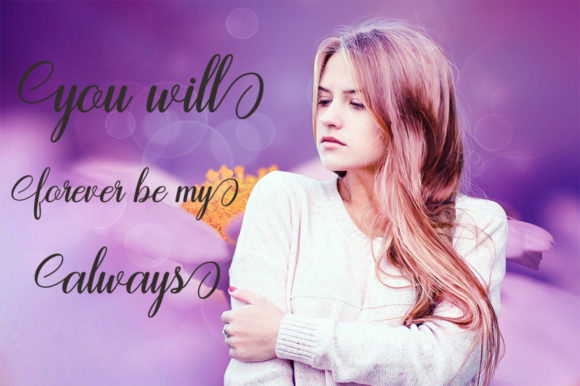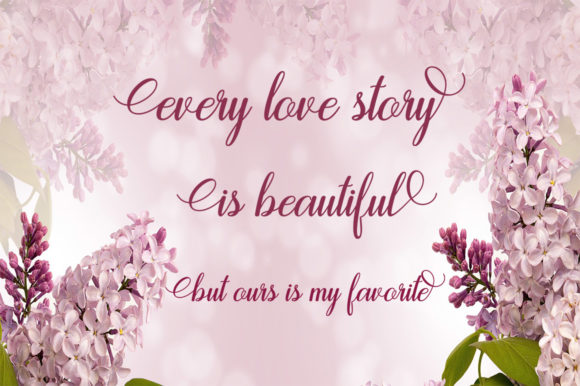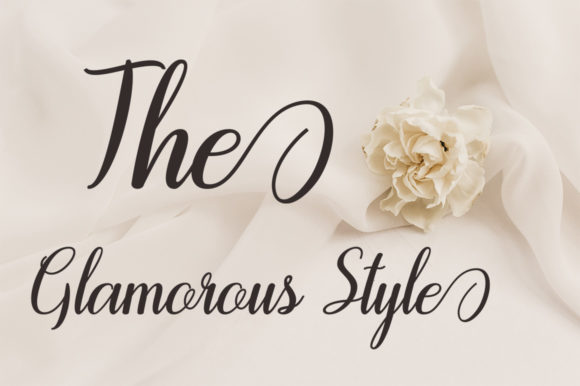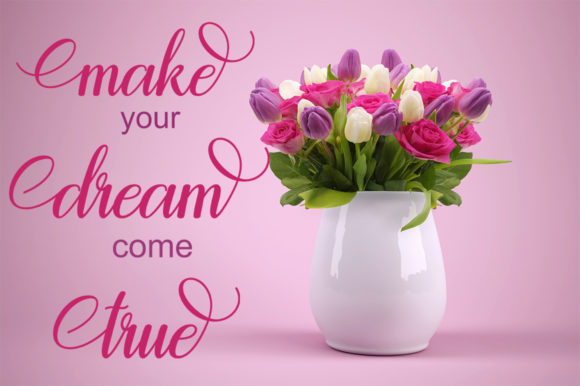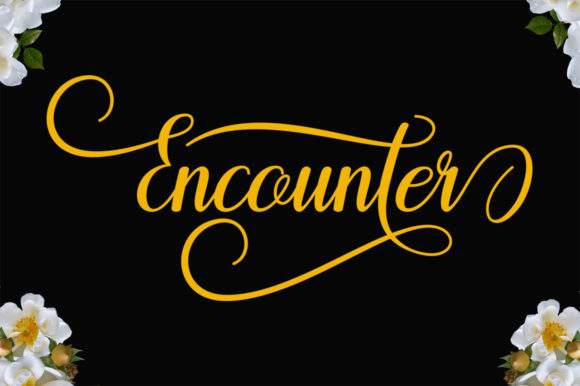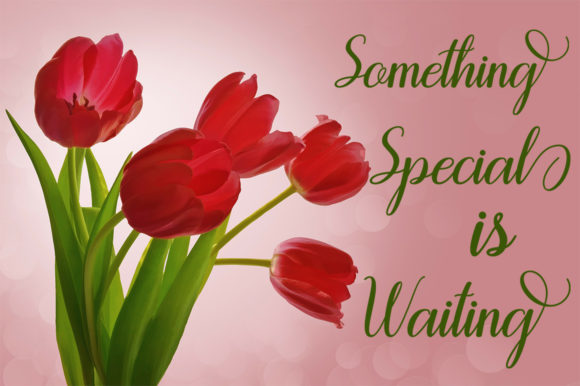
Introducing Encounter Font: The Ultimate Modern Script Font for Designers and Crafters
In the world of typography, fonts play a crucial role in conveying messages, expressing emotions, and creating visual identities. For designers and crafters, finding the perfect font can be a daunting task, especially when it comes to creating stunning visuals for various projects. That’s where Encounter Font comes in – a new modern script font that’s taking the design world by storm.
The Encounter Font: A Modern Script Font with a Trendy Twist
The Encounter is a beautifully crafted modern script font that boasts a smooth baseline and a trendy, feminine style. Its elegant and flowing lines make it perfect for a wide range of projects, from T-shirts and thank you cards to quotes, greeting cards, logos, business cards, and more. Whether you’re a designer, crafter, or DIY enthusiast, Encounter Font is sure to become your go-to choice for creating visually stunning projects.
Key Features of Encounter Font
- Smooth Baseline: The Encounter font features a smooth baseline that provides a clean and elegant look, making it perfect for projects that require a touch of sophistication.
- Trendy and Feminine Style: The font’s trendy and feminine style makes it ideal for designers and crafters who want to add a touch of elegance and glamour to their projects.
- Modern Script Font: As a modern script font, The Encounter is perfect for creating stunning handwritten-style text that adds a personal touch to any project.
- Versatile: The font’s versatility makes it suitable for a wide range of projects, from fashion and beauty to lifestyle and wedding-related designs.
Why Designers and Crafters Love Encounter Font
Encounter Font has quickly become a favorite among designers and crafters due to its unique combination of style, elegance, and versatility. Here are some reasons why:
- Ease of Use: The font is incredibly easy to use, even for those who are new to design or crafting.
- High-Quality Design: The Encounter font is designed with high-quality in mind, ensuring that your projects look professional and polished.
- Customization: The font can be easily customized to fit your project’s specific needs, allowing you to add your personal touch.
- Time-Saving: With Encounter Font, you can create stunning projects in no time, saving you hours of design time.
The Encounter font is perfect for a wide range of projects, including:
- T-Shirts: Add a touch of elegance to your T-shirt designs with The Encounter font.
- Thank You Cards: Create beautiful and personalized thank you cards for special occasions.
- Quotes: Use The Encounter font to create stunning quote graphics for social media or blogs.
- Greeting Cards: Design beautiful greeting cards for birthdays, weddings, and other special occasions.
- Logos: Use The Encounter font to create elegant and sophisticated logos for your business or brand.
- Business Cards: Add a touch of professionalism to your business cards with The Encounter font.
| Font Name | Encounter Font |
In conclusion, The Encounter font is a must-have for designers and crafters who want to create stunning projects with a touch of elegance and sophistication. Its smooth baseline, trendy and feminine style, and versatility make it perfect for a wide range of projects. Whether you’re a seasoned designer or a DIY enthusiast, Encounter Font is sure to become your go-to choice for creating visually stunning projects.